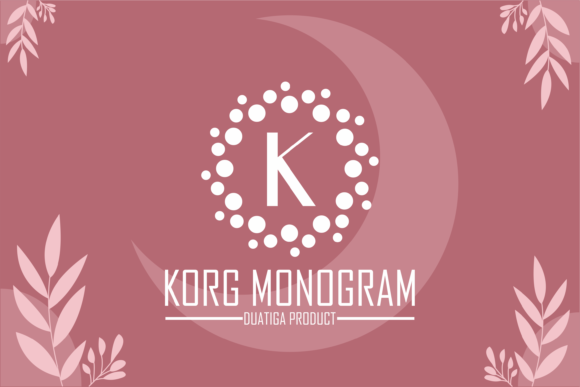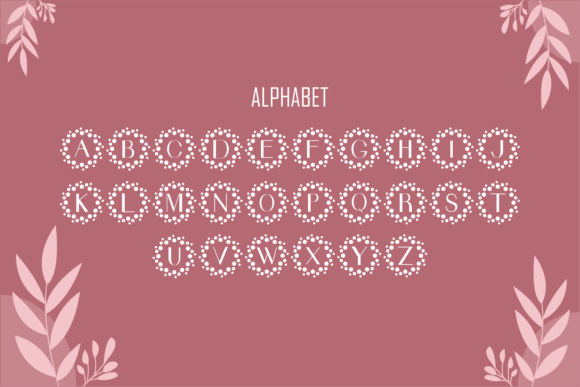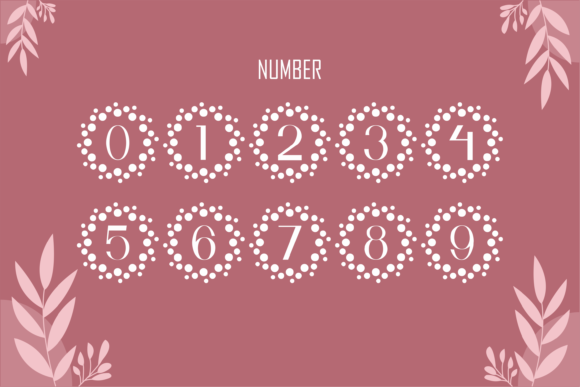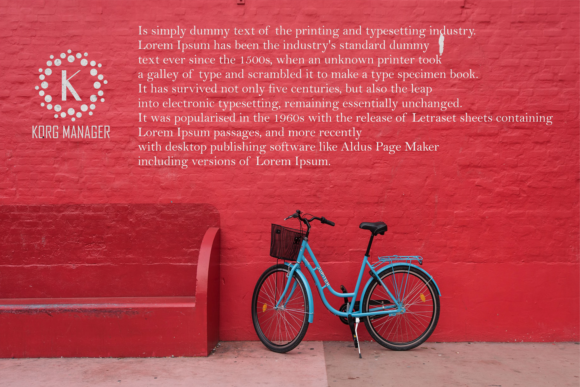
Korg Monogram Font: A Unique Decorative Font for Cricut & DIY Designs
About the Korg Monogram Font
Make a bold statement with Korg Monogram Font, a powerful and memorable font. Korg Monogram is a modern and unique decorative font. It looks amazing on wedding invitations, thank you cards, quotes, greeting cards, logos, business cards and any other designs that require a personalized touch. You will be amazed by the result.
Korg Monogram’s strong, decorative forms are ideal for headlines, short text blocks on posters or packaging, and branding applications requiring a sophisticated, memorable logo. Its unique character makes it less suitable for body text or UI elements where readability over extended lengths is crucial.
The font’s inherent boldness pairs well with clean sans-serif fonts like Helvetica or Open Sans for a balanced contrast, or a more playful feel could be achieved with a rounded geometric sans-serif. For a touch of elegance, consider pairing it with a classic serif like Garamond or a delicate script font for invitations.
Korg Monogram projects a modern and confident personality, making it perfect for brands aiming for a luxurious or upscale image. It’s versatility allows for both bold statements and subtle details depending on the application and accompanying fonts.
Korg Monogram Font Usage Examples
Korg Monogram Font Example